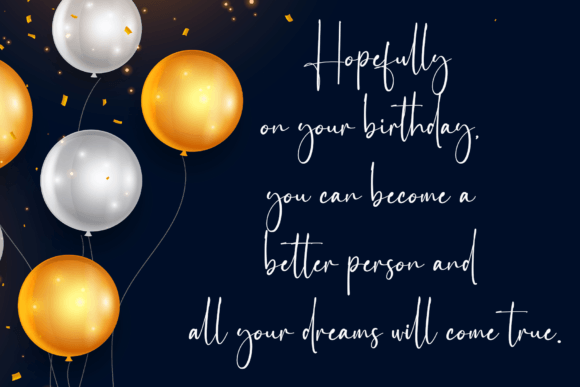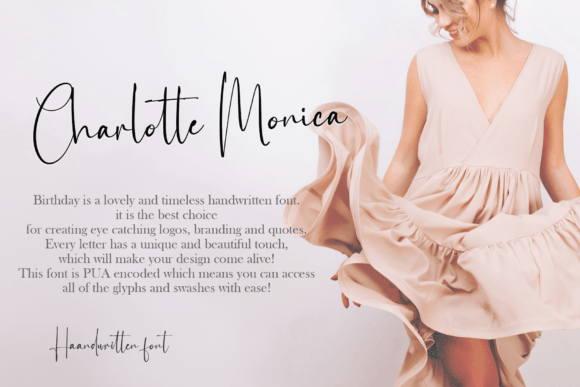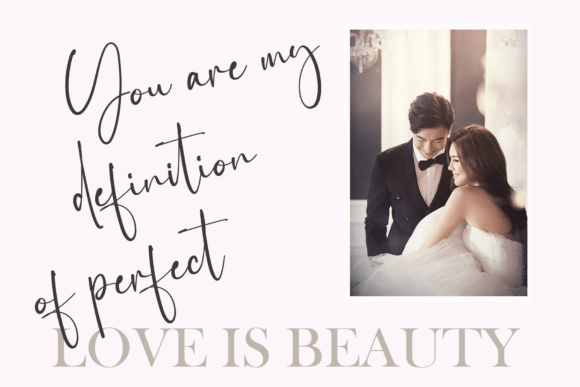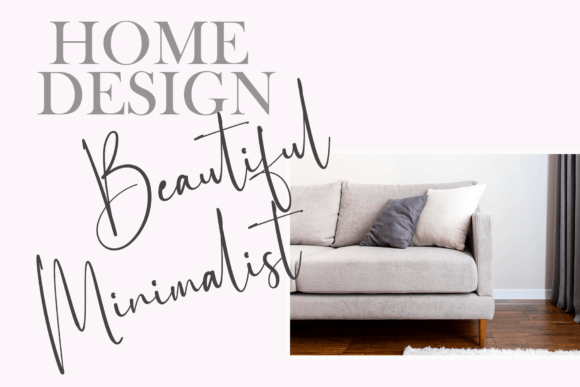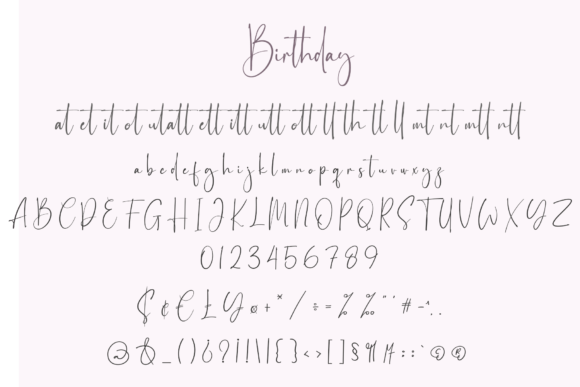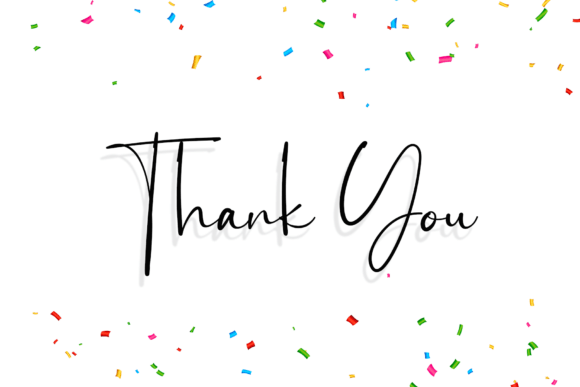
Creating Memories, One Design at a Time
There’s something special about celebrating a birthday, isn’t there? The excitement, the joy, the love – it’s a moment to cherish and remember forever. As designers, we know that the right font can elevate a project from ordinary to extraordinary. And that’s exactly what the Birthday Font does.
This beautiful handwritten font adds an elegant touch to any design, making it perfect for your favorite projects. With its distinct and timeless style, you’ll fall in love with the Birthday Font all over again. Whether you’re creating a birthday card, a party invitation, or a special gift, this font is sure to make it stand out.
Birthday Font Key Features
- Font Size: This font is designed to be used at various sizes, ranging from 12 to 48 points, making it suitable for a wide range of applications.
- Resolution: The font is optimized for use at resolutions of 72 dpi to 300 dpi, ensuring clear and crisp text output.
- Unique Characteristics: The Birthday Font features a playful, cursive design with decorative elements, making it ideal for adding a celebratory touch to party invitations, greeting cards, and other special occasion materials.
- Font Style: The Birthday Font is available in both regular and bold weights, allowing users to customize the font style to suit their needs.
Birthday Font Review
As a designer, I was excited to explore the Birthday Font, a script font meant to evoke the joy and celebration of birthdays. Here’s my honest review:
- The font’s playful, cursive design effectively captures the whimsical and celebratory atmosphere of birthdays.
- The font’s bold, expressive strokes add a touch of elegance and sophistication, making it suitable for formal and informal use.
- The font’s flexibility in terms of size and color makes it easy to incorporate into various design projects.
- The font’s irregularities and inconsistencies can make it challenging to read, particularly at smaller sizes.
- The font’s lack of subtlety and nuance may make it feel overly dramatic or cartoonish in certain contexts.
- The font’s extensive use of flourishes and ornamentation can be overwhelming and detract from the overall message.
While the Birthday Font is certainly eye-catching and attention-grabbing, its limitations and inconsistencies hold it back from being a truly effective design tool. With some careful consideration and restraint, it can be a valuable addition to your design arsenal. However, its potential is largely dependent on the skill and sensitivity of the designer using it.
For the most effective use of the Birthday Font, consider the following tips and common use cases:
– Use the Birthday Font for invitations, greeting cards, and party decorations.
– Experiment with different font sizes and colors to create a visually appealing design.
– Combine the Birthday Font with other design elements, such as graphics and images, to create a unique and festive look.